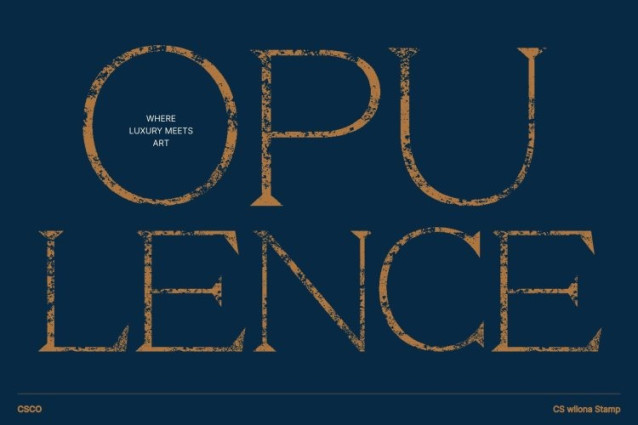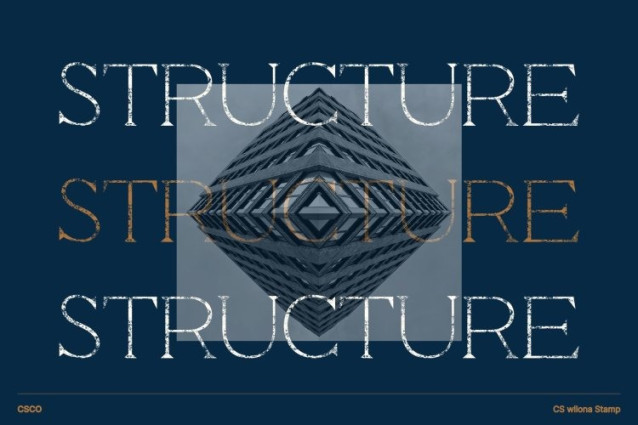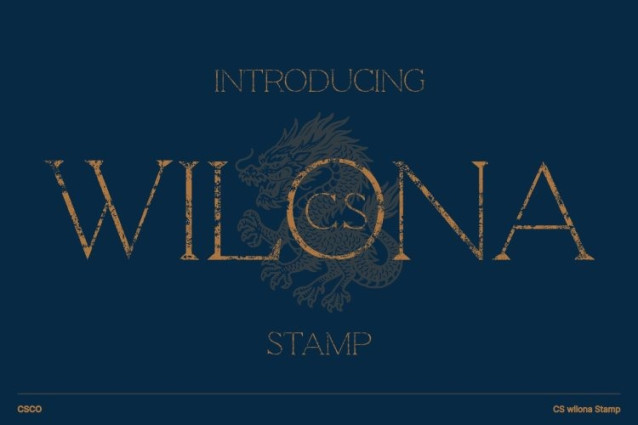
CS Wilona Stamp Font
CS Wilona Stamp Font is an elegant serif font that harmonizes refined curves with geometric precision. Each letterform is crafted with balance and sophistication, creating a luxurious visual rhythm that feels both classic and contemporary. Designed for elegance and impact, this font embodies timeless beauty through its structured form and graceful flow.
Stamp Texture with Vintage Personality
Adding a distinctive twist, the subtle stamp texture lends this font a tactile, vintage charm. This textured effect softens its polished edges, giving it an artisanal, handcrafted feel that evokes the warmth of traditional printing. The blend of refined structure and organic imperfection creates a unique duality modern luxury with nostalgic depth.
Perfect for Luxury Branding and Editorial Design
This font shines in projects that demand sophistication and individuality. From luxury branding and premium packaging to editorials and event promotions, this font elevates every design with its elegant presence. Its textured finish enhances logos and headlines, adding character while maintaining a sense of exclusivity and class.
Timeless, Textured, and Gracefully Thin
This font is more than a typeface it’s a statement of refined artistry. Combining geometric elegance with vintage texture, it delivers a look that’s both polished and soulful. Use this font to bring sophistication, warmth, and authenticity to your next design, where elegance meets craftsmanship in perfect harmony.